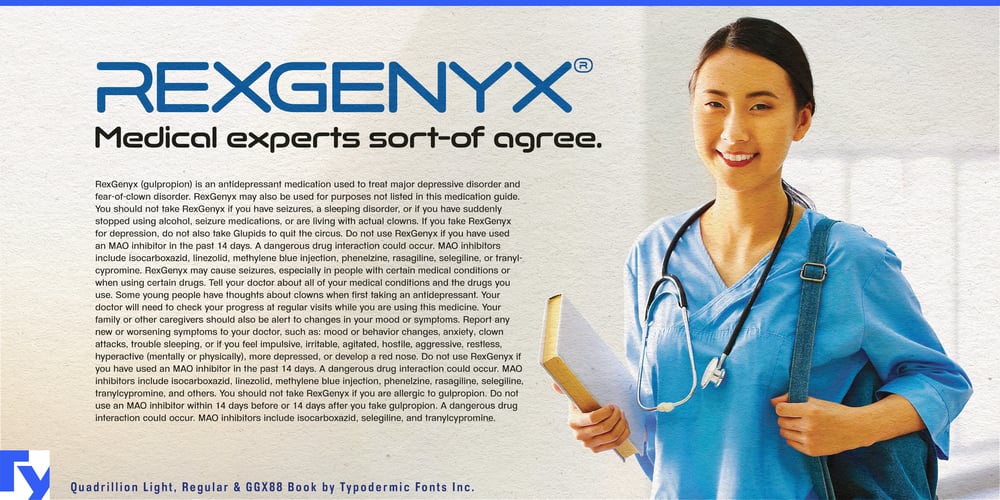
Quadrillion Font Family was designed by Ray Larabie and published by Typodermic. Quadrillion contains 12 styles and family package options. Venture into the future of typography with Quadrillion, a typeface that pushes the boundaries of design. Building upon the legacy of Ethnocentric, Quadrillion elevates the concept with enhanced curves, precise geometry, and a distinctively wide stance. Its capsule-like characters and soft stroke ends create a unique plastic presence that’s simultaneously bold and approachable.Quadrillion’s six meticulously crafted weights and their italic counterparts offer designers a versatile toolkit for creating impactful visual narratives. Whether you’re crafting a sleek user interface, designing an attention-grabbing poster, or developing a forward-thinking brand identity, Quadrillion provides the futuristic flair and readability you need to make your message resonate.This typeface isn’t just about style—it’s engineered for the global designer. Quadrillion speaks volumes in multiple alphabets, seamlessly integrating Greek and Cyrillic scripts alongside Latin. It even ventures into the intricate world of Vietnamese typography, ensuring your designs can communicate across borders and cultures with equal panache.For those moments when your project needs to transcend the ordinary and embrace the extraordinary, Quadrillion stands ready. Its wide characters command attention, while its refined aesthetics whisper sophistication. Don’t just design for today—shape the visual landscape of tomorrow with Quadrillion.